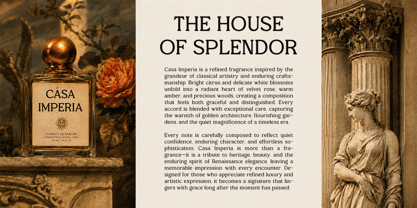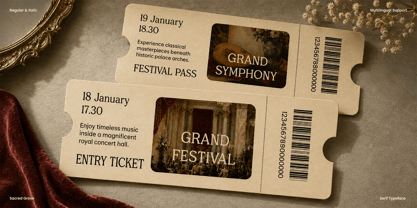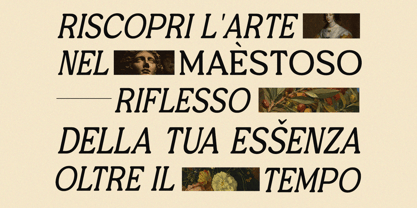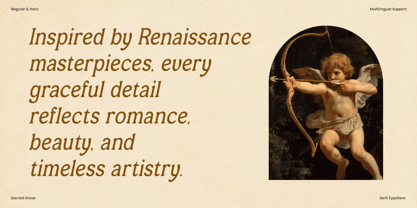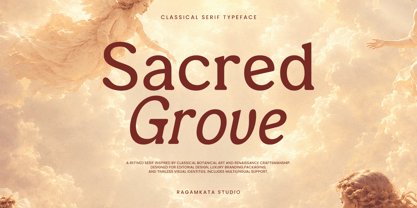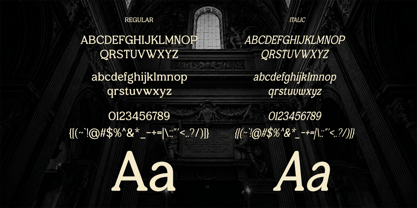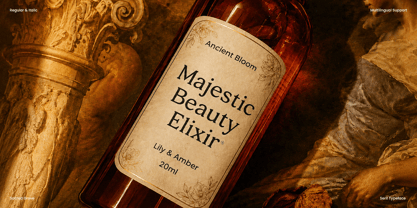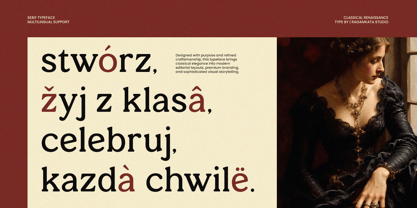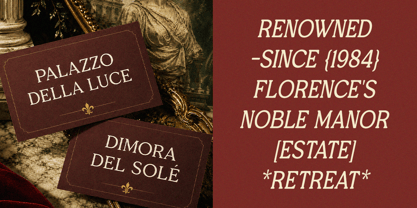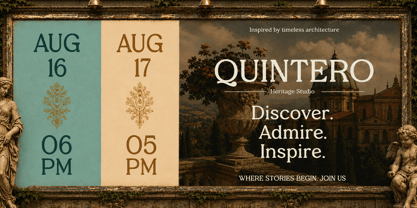
Sacred Grove
by RagamKata
The Sacred Grove Font Family was designed by Yogiswhara Dio Prakoso Riadi and published by RagamKata. Sacred Grove contains 2 styles and family package options. More about this family
Sacred Grove is a refined classic serif font that blends timeless elegance with a sophisticated editorial character. Its graceful proportions, distinctive serif details, and polished appearance create a premium visual presence for both traditional and contemporary designs.
Designed to bring an elegant and luxurious feel to typography, Sacred Grove works beautifully for editorial headlines, fashion branding, luxury packaging, wedding stationery, boutique identities, cultural publications, posters, and premium hospitality projects. Its timeless personality makes it especially effective for designs that need a sense of sophistication, craftsmanship, and refined character.
From sophisticated magazine layouts and wine labels to boutique branding and elegant invitations, Sacred Grove adds a distinctive classic touch while remaining versatile for modern creative projects. It is an excellent choice for designers looking for a luxury serif font with classic, editorial, timeless, and sophisticated visual appeal.